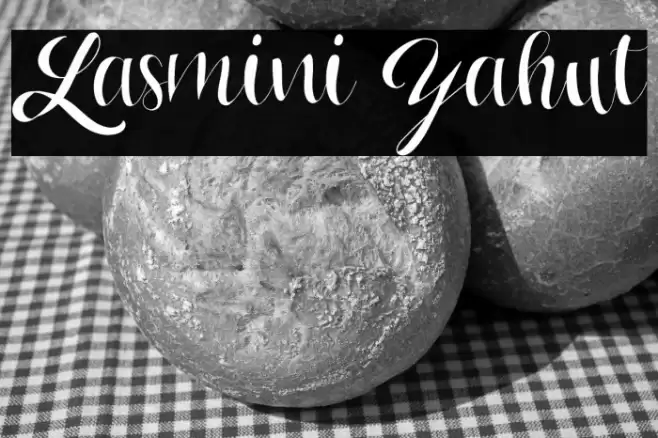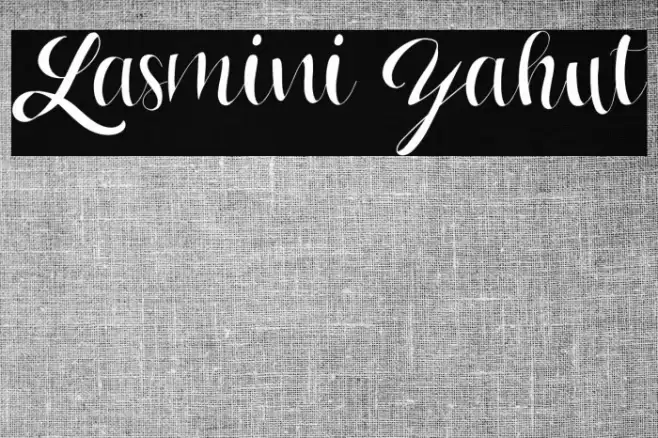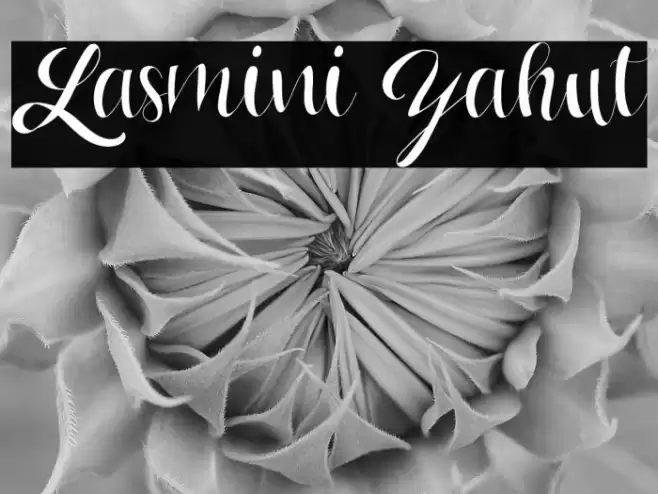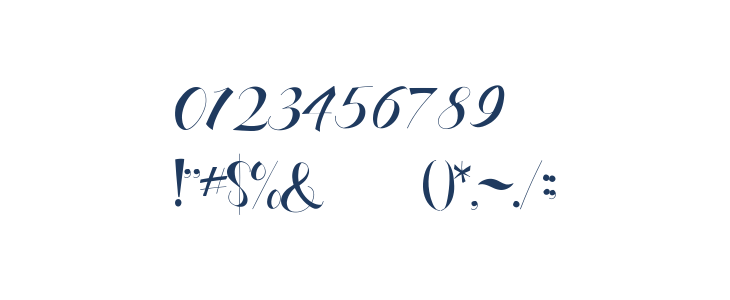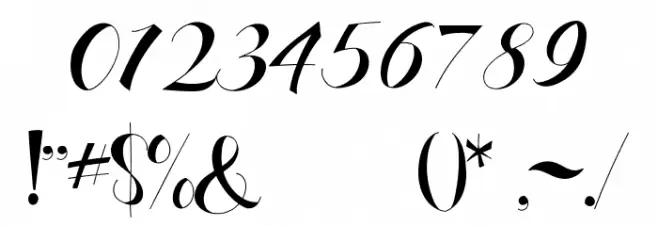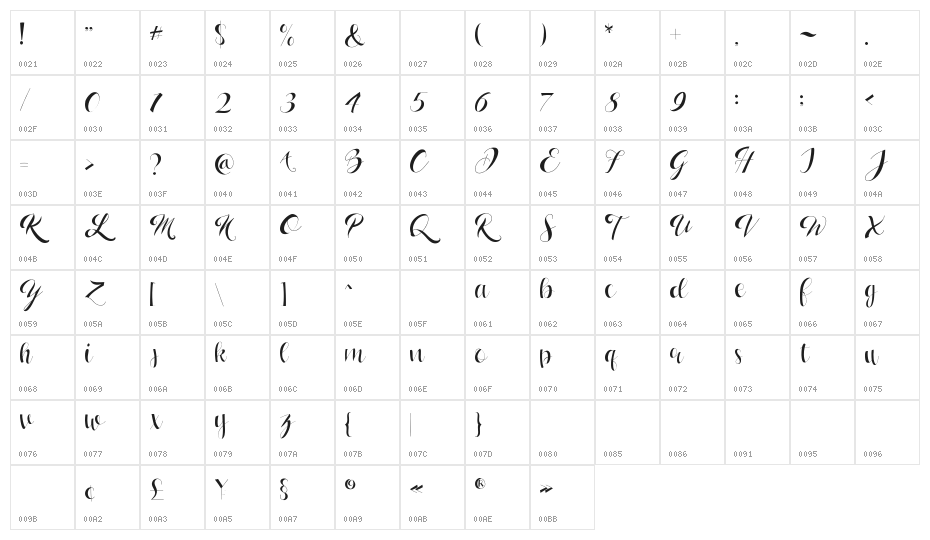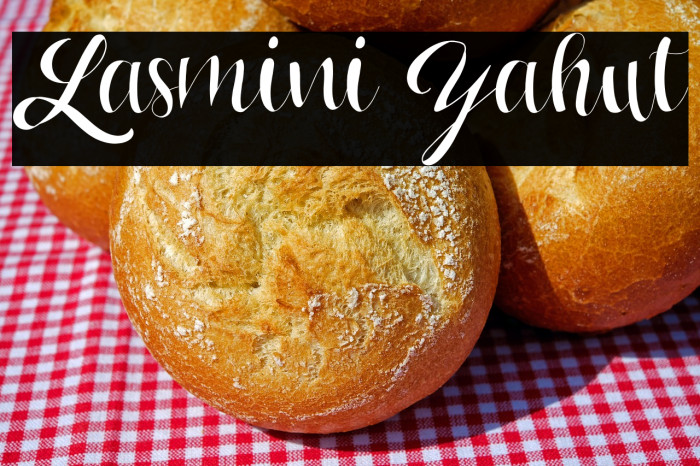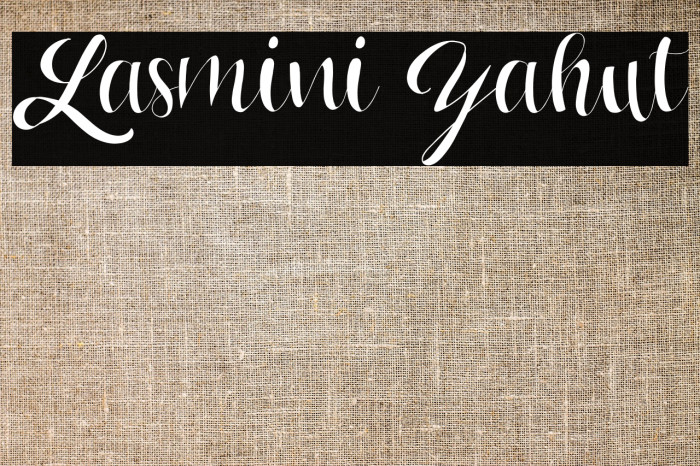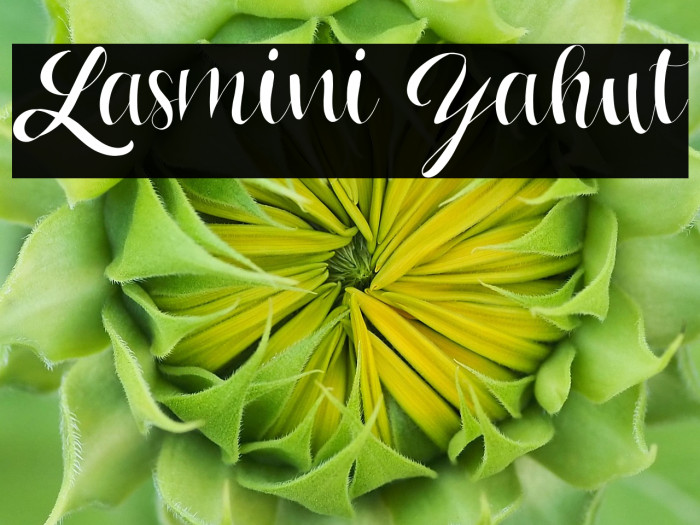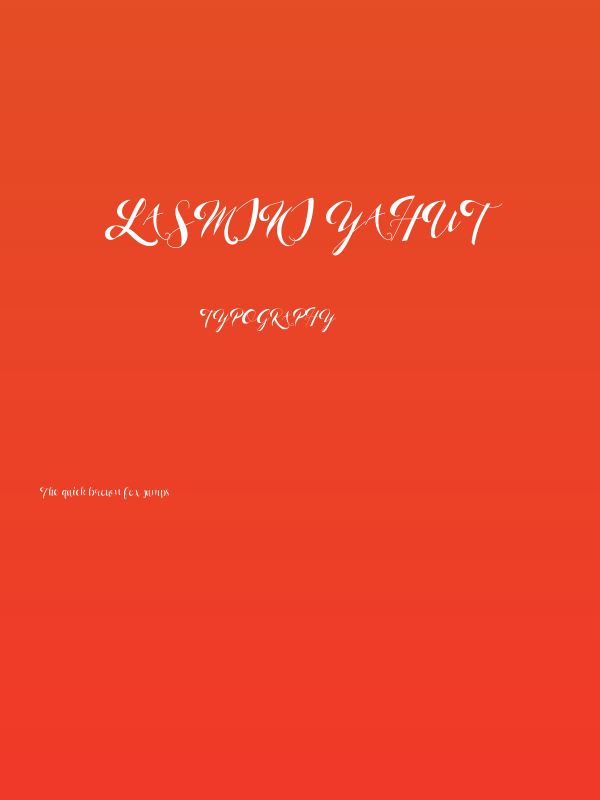
Lasmini Yahut Font
Lasmini Yahut Description
This font exudes elegance and sophistication with its flowing, cursive style. The characters are intricately designed with graceful loops and swirls, giving it a handwritten appearance. The uppercase letters are particularly ornate, featuring elaborate flourishes that add a touch of drama. The lowercase letters maintain a consistent style, with smooth curves and a slight slant that enhances readability. The numerals are equally stylish, complementing the overall aesthetic. Special characters are thoughtfully crafted, maintaining the font's cohesive look. This font is perfect for projects that require a personal, artistic touch.
An elegant, cursive font with flowing, ornate characters from Regular fonts.
- Font: Lasmini Yahut
- Proposed Projects: Ideal for wedding invitations, greeting cards, branding, and logo design.
- Use Case: Logos, Invitations, Decorative Text